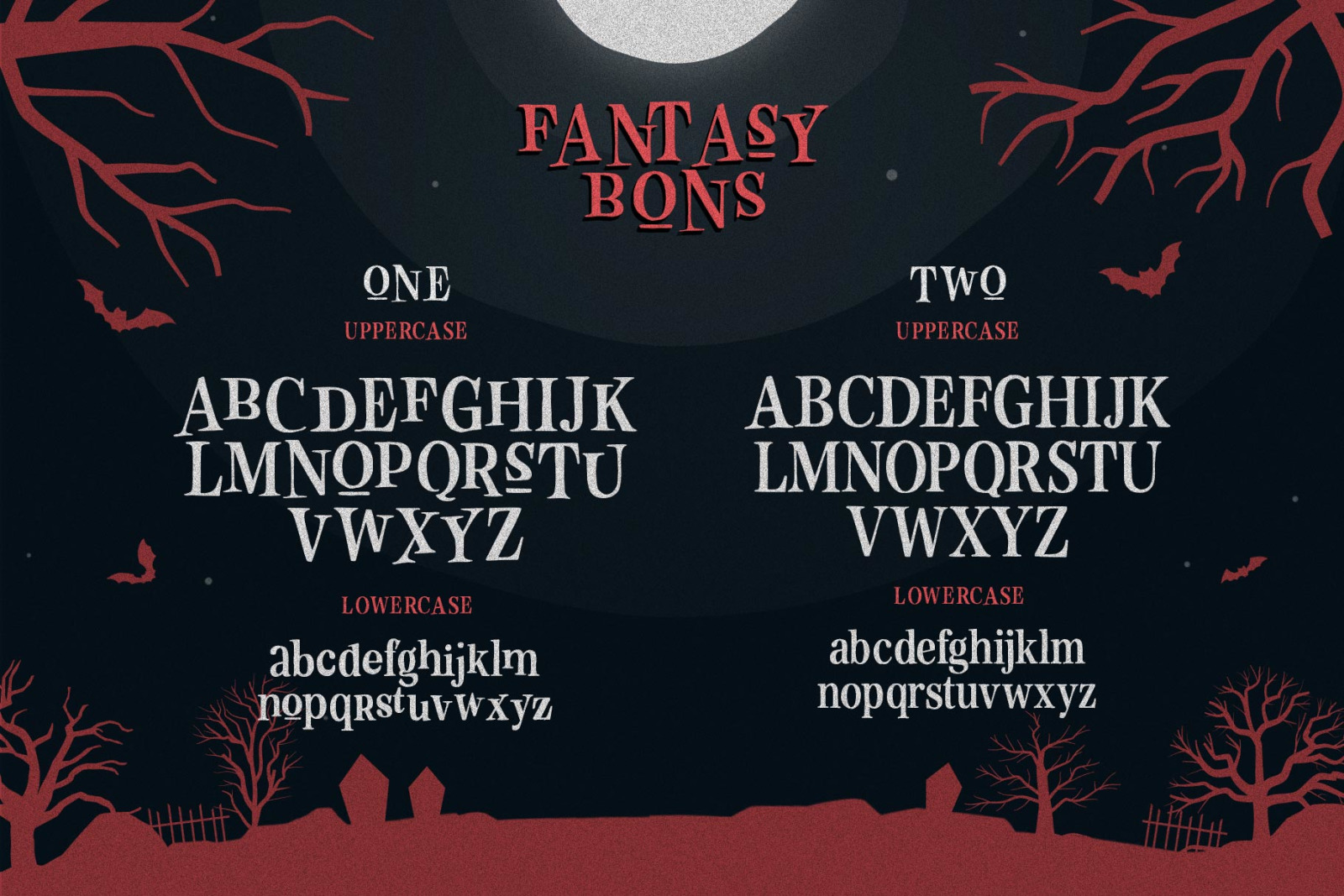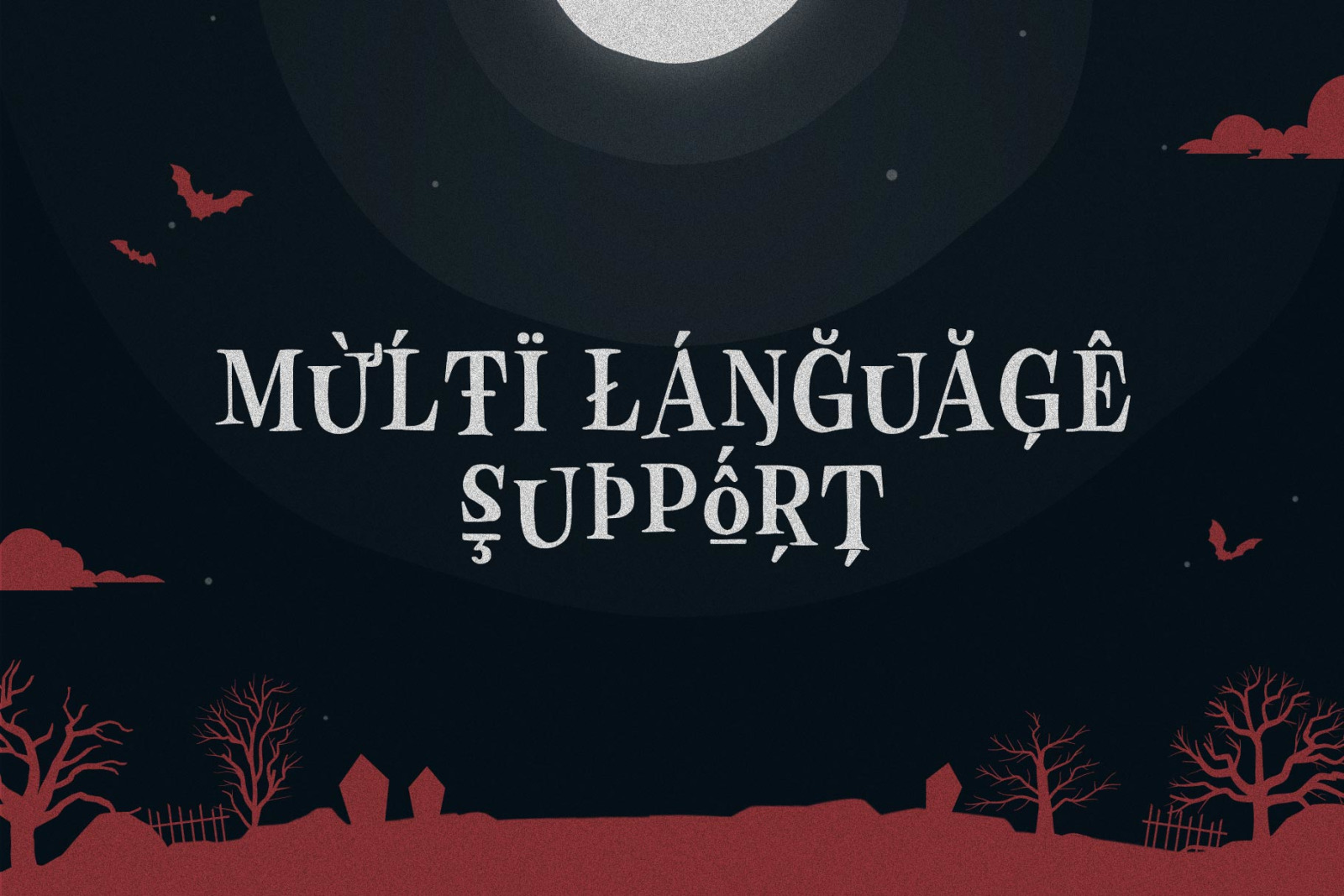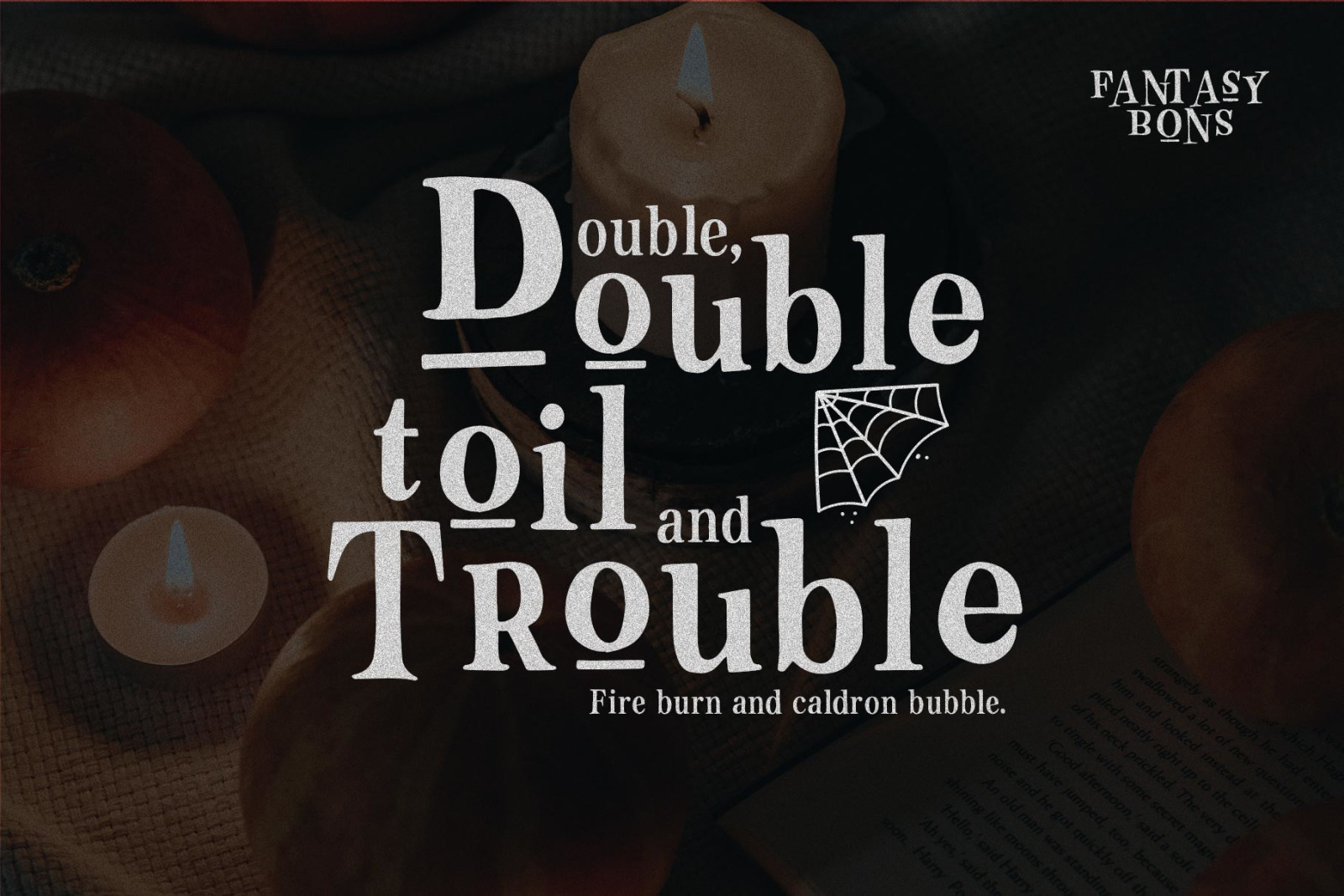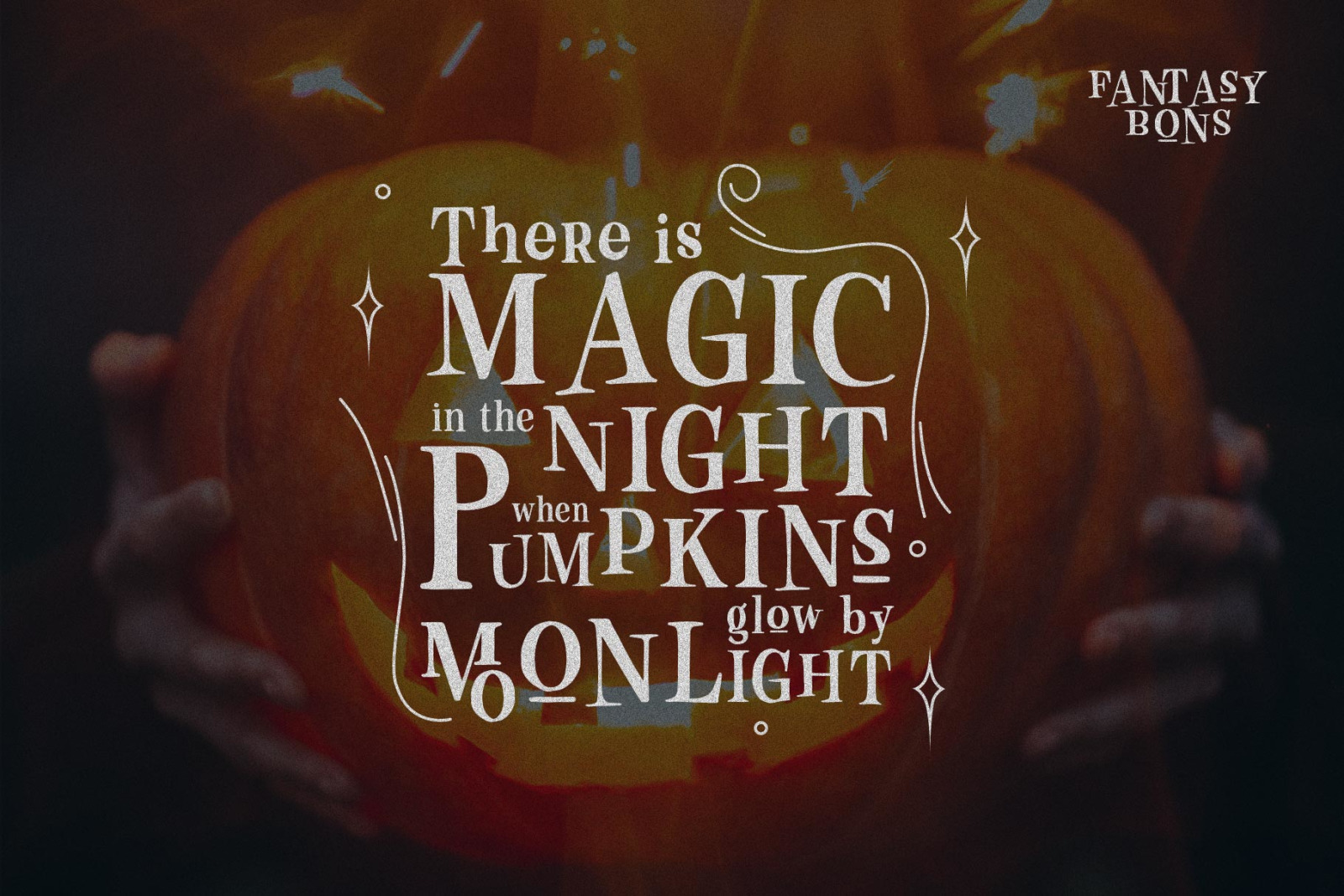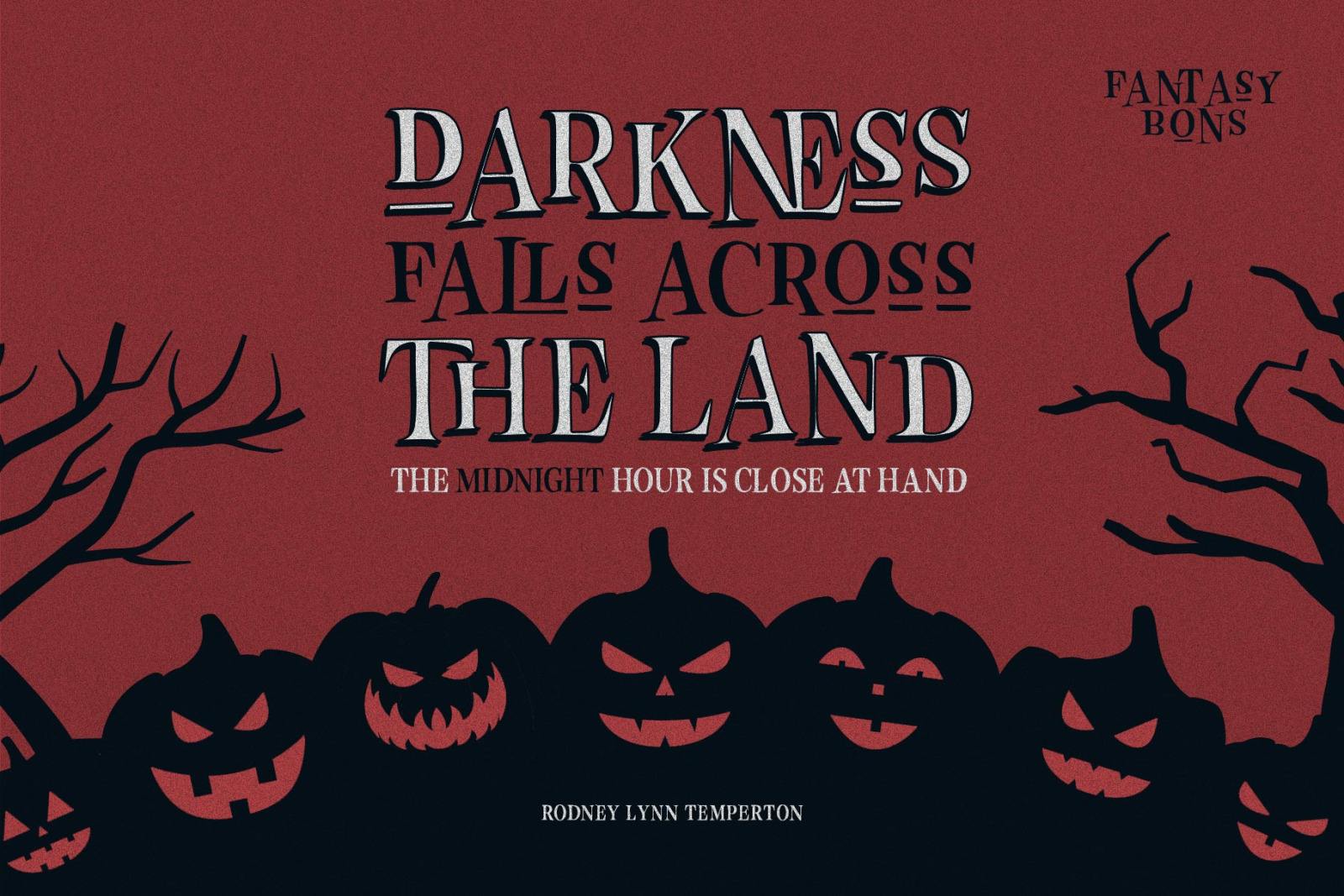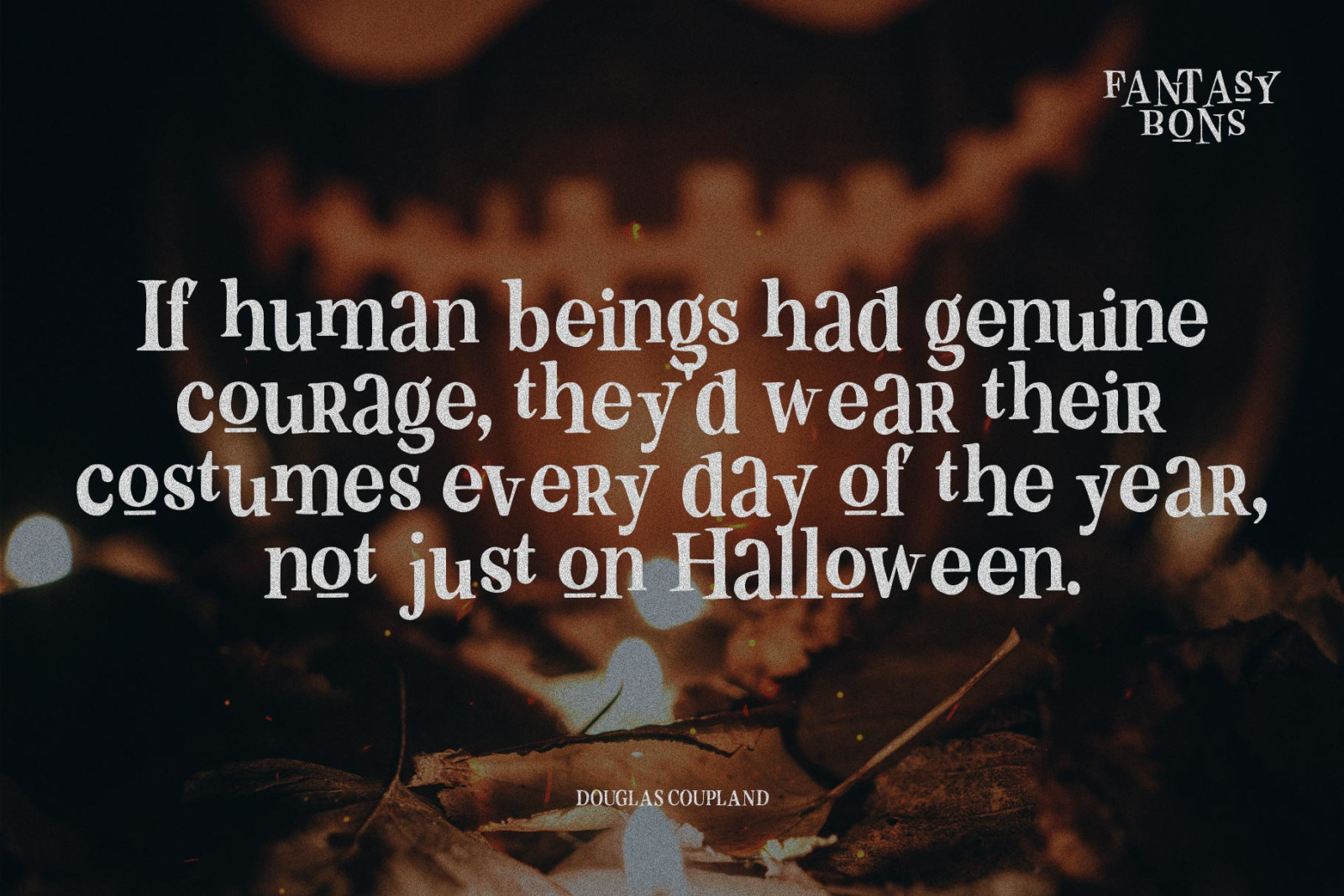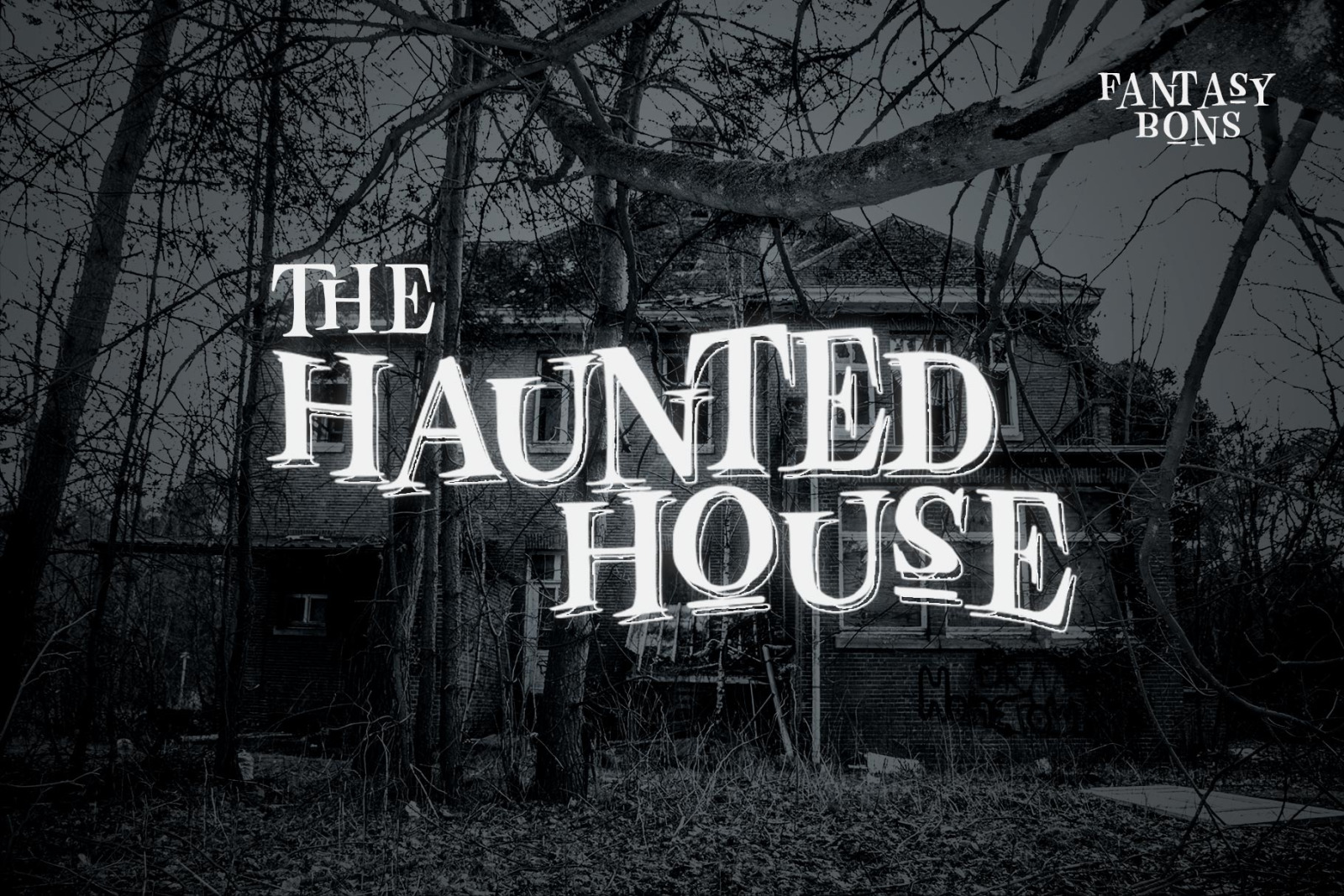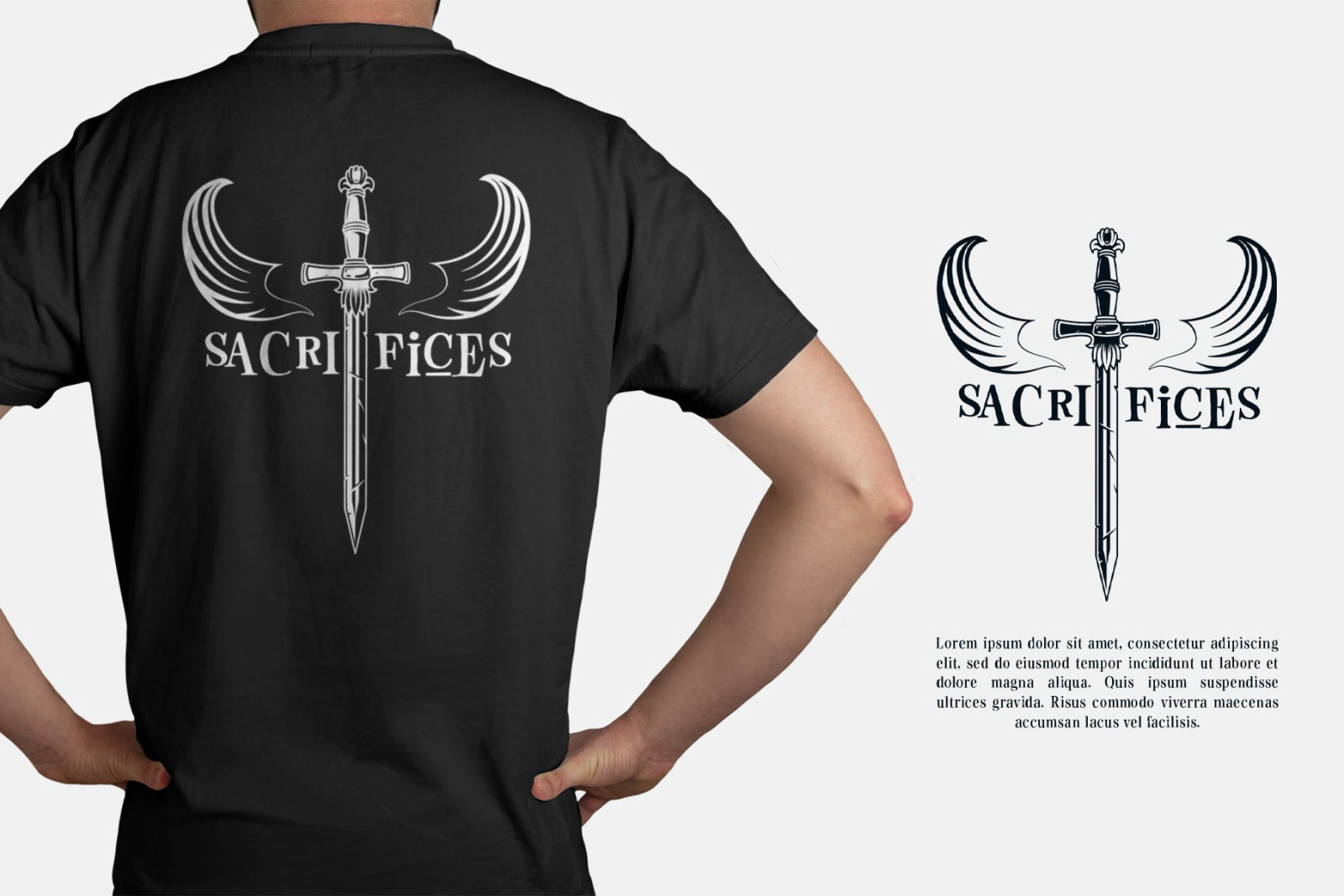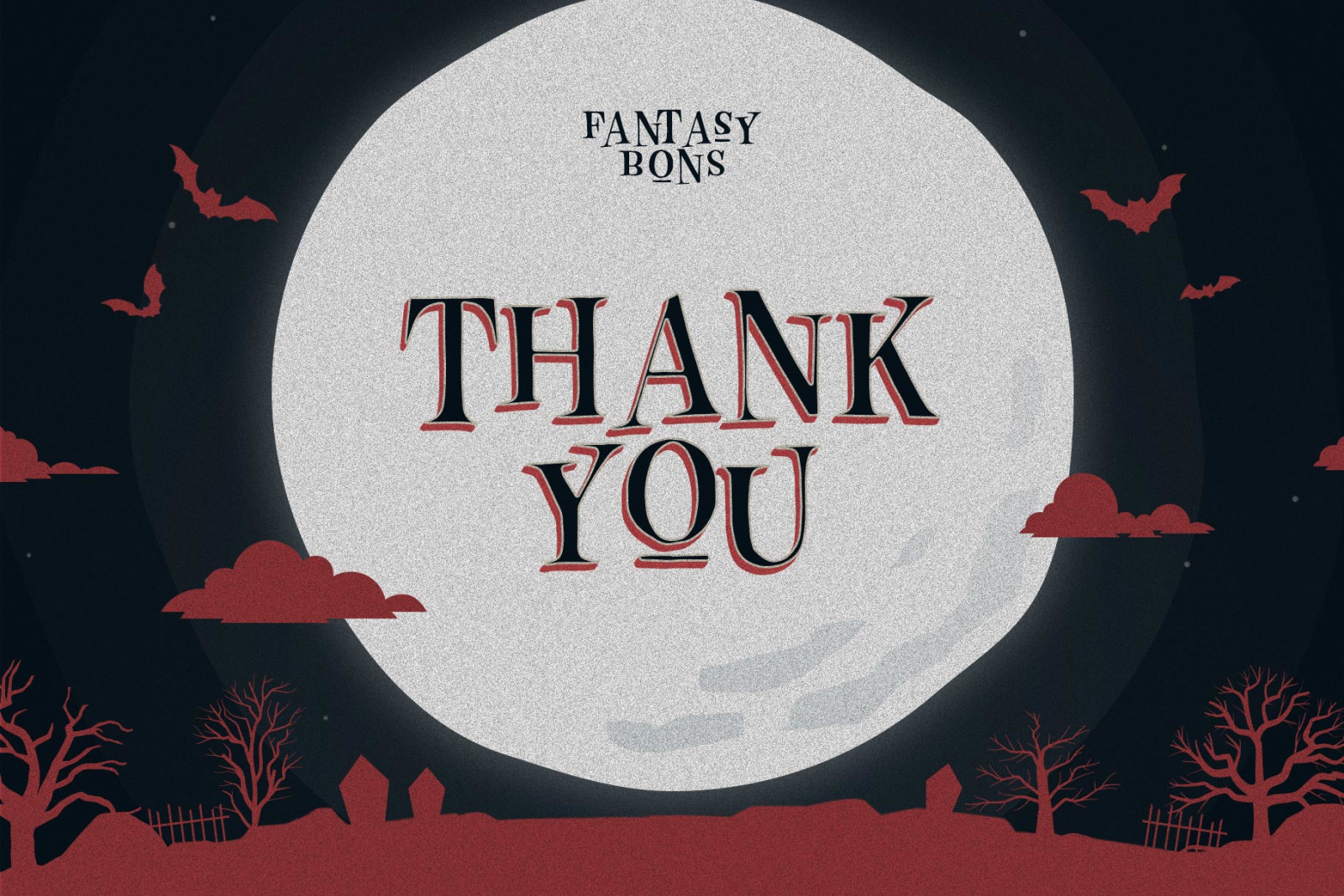
Fantasy Bons Font
Introducing Fantasy Bons typeface. This font is inspired by serif fonts as usual but made with manual rough style, besides that Fantasy Bons font also has two families that have unique designs, namely distorting the character of the letters, making them shorter or taller than the normal font. This causes the Fantasy Bons font to look unique and different from the others.
The Fantasy Bons font is perfect for horror-themed designs such as Halloween designs or video titles, book covers and so on.
Stylistic Alternates